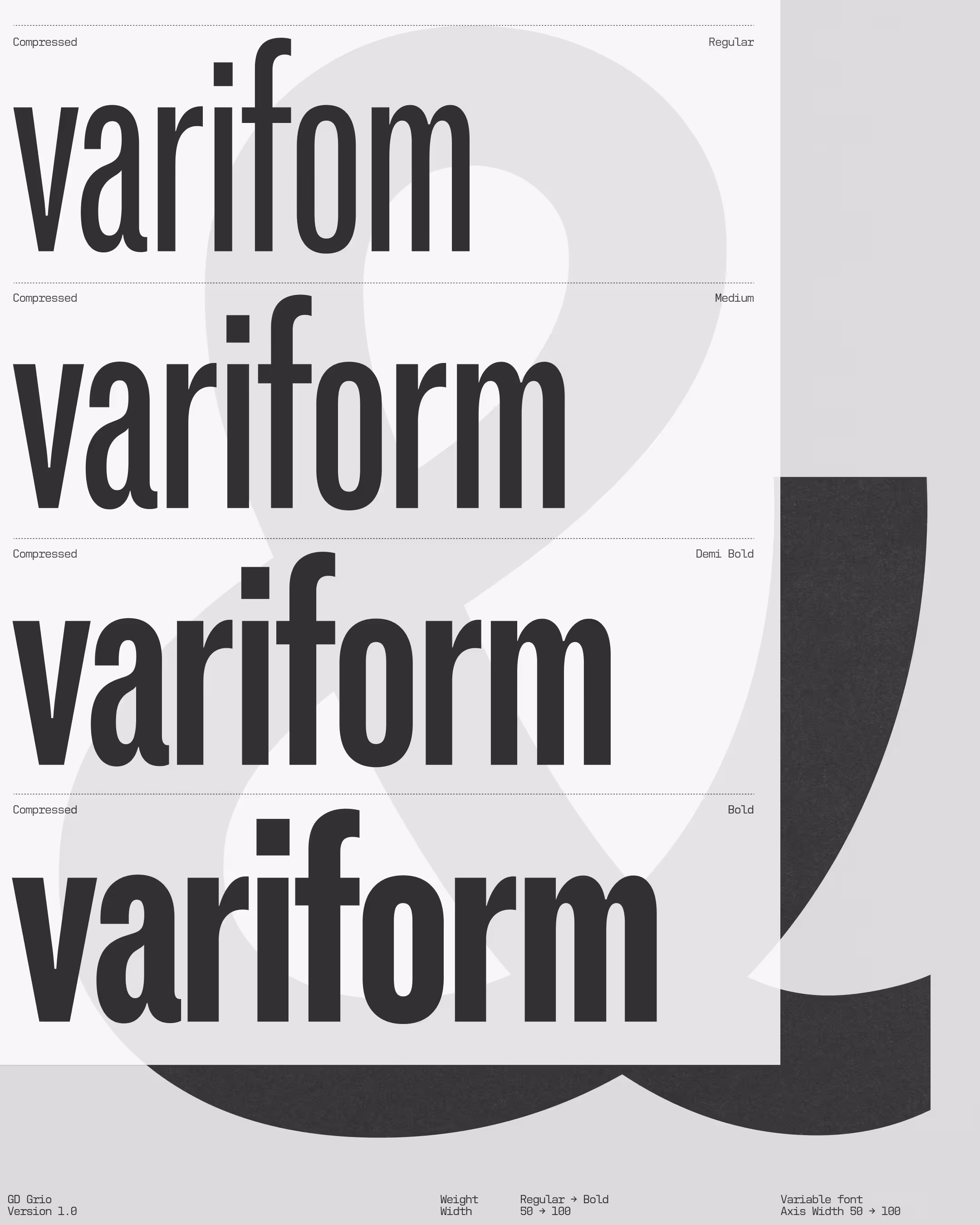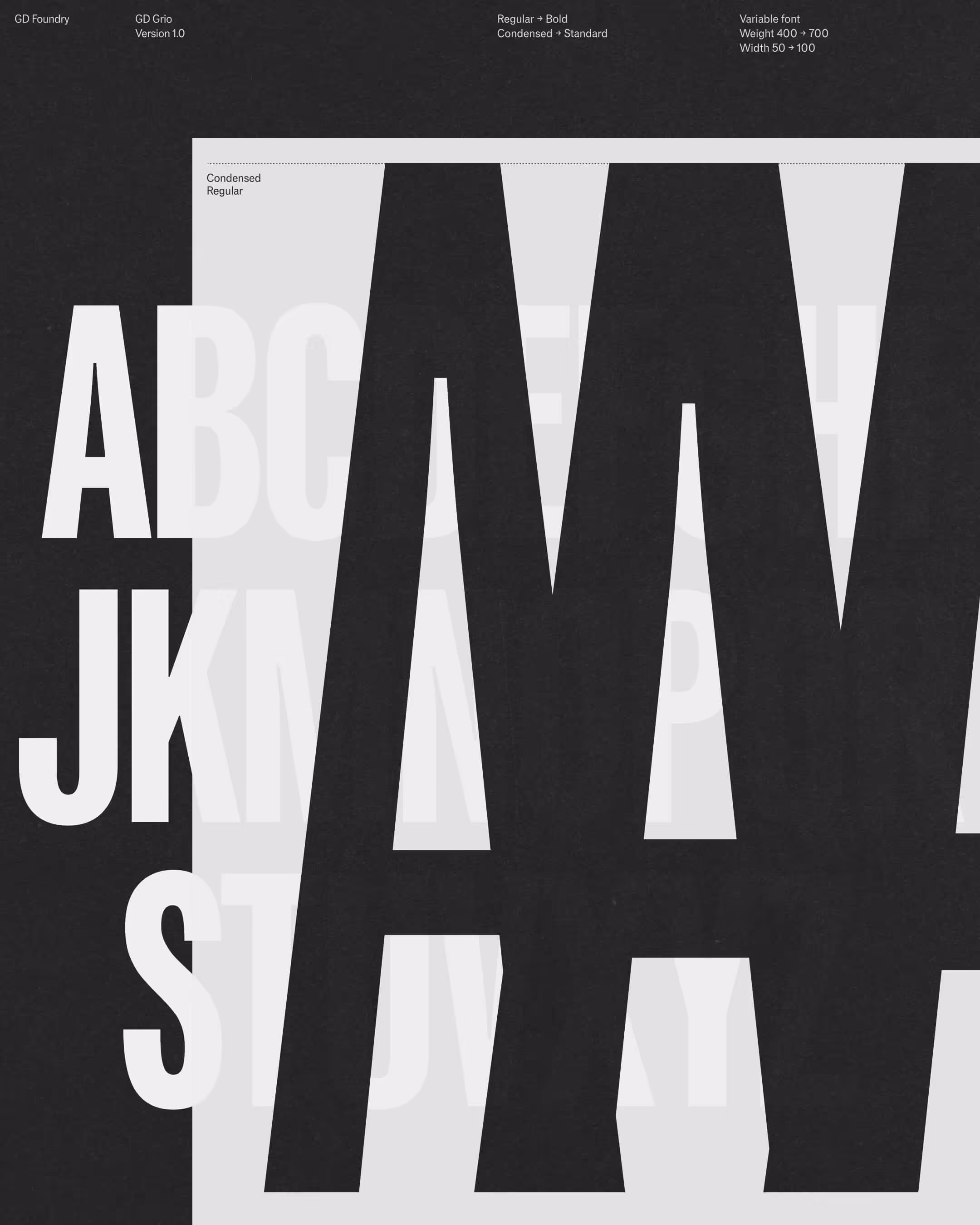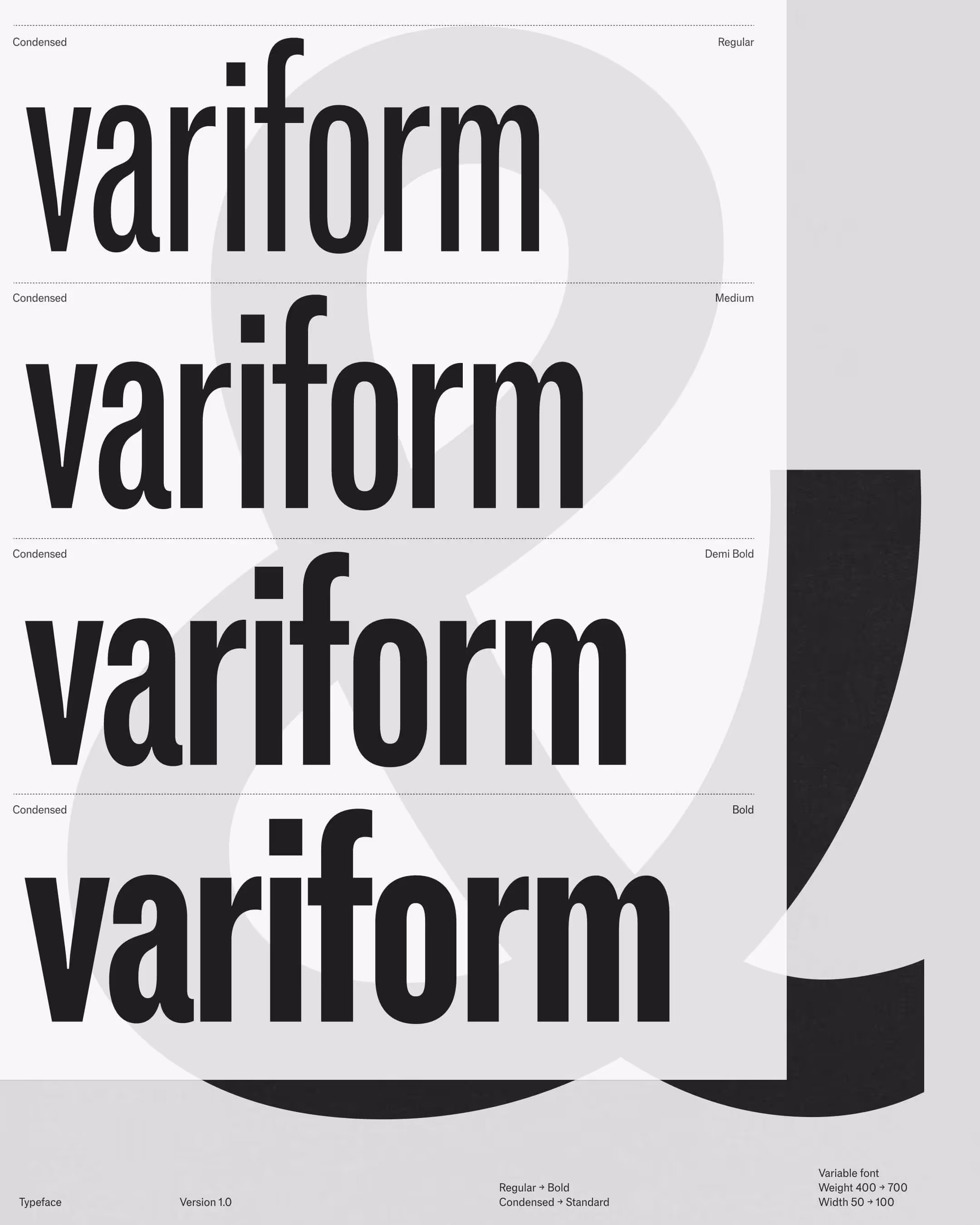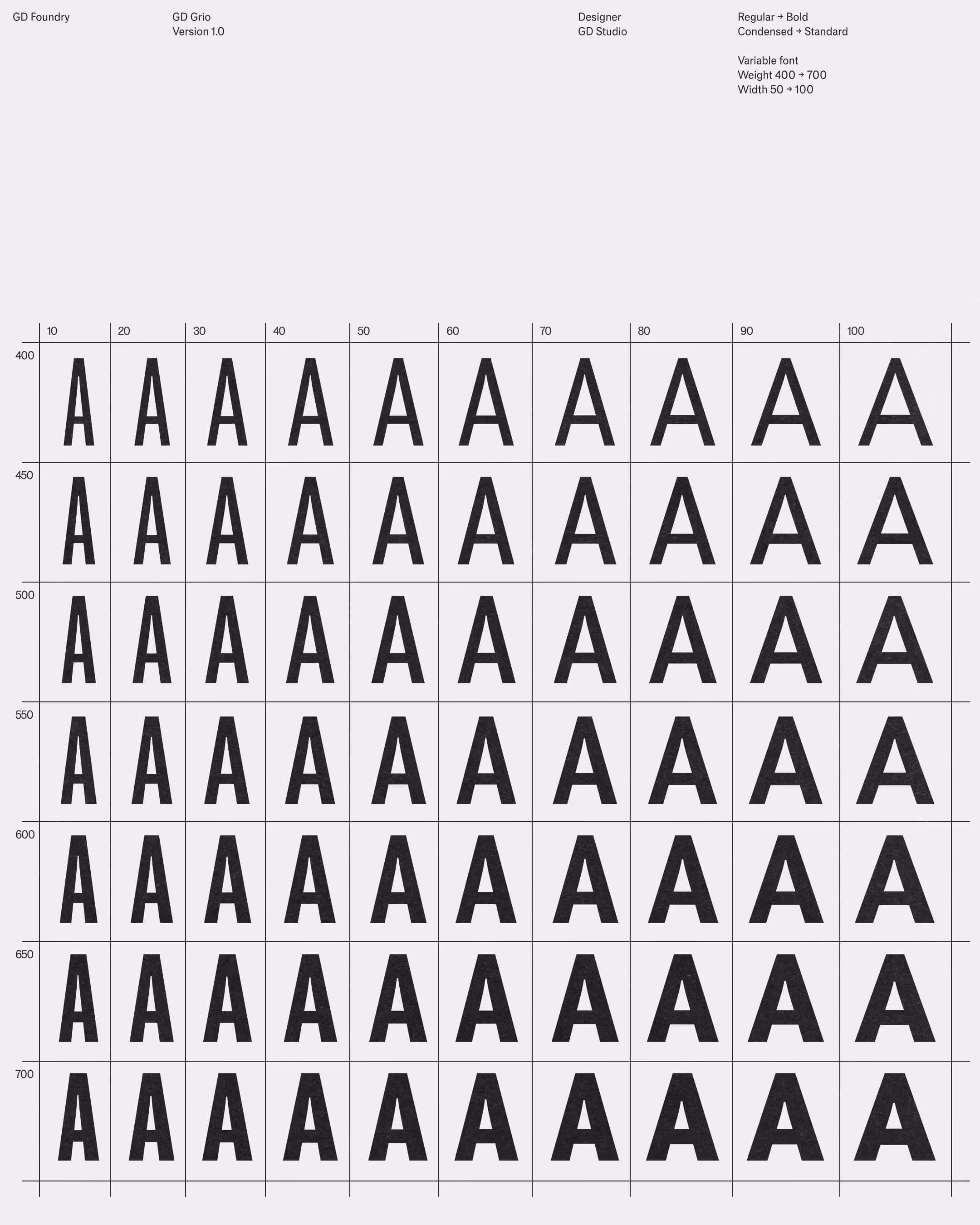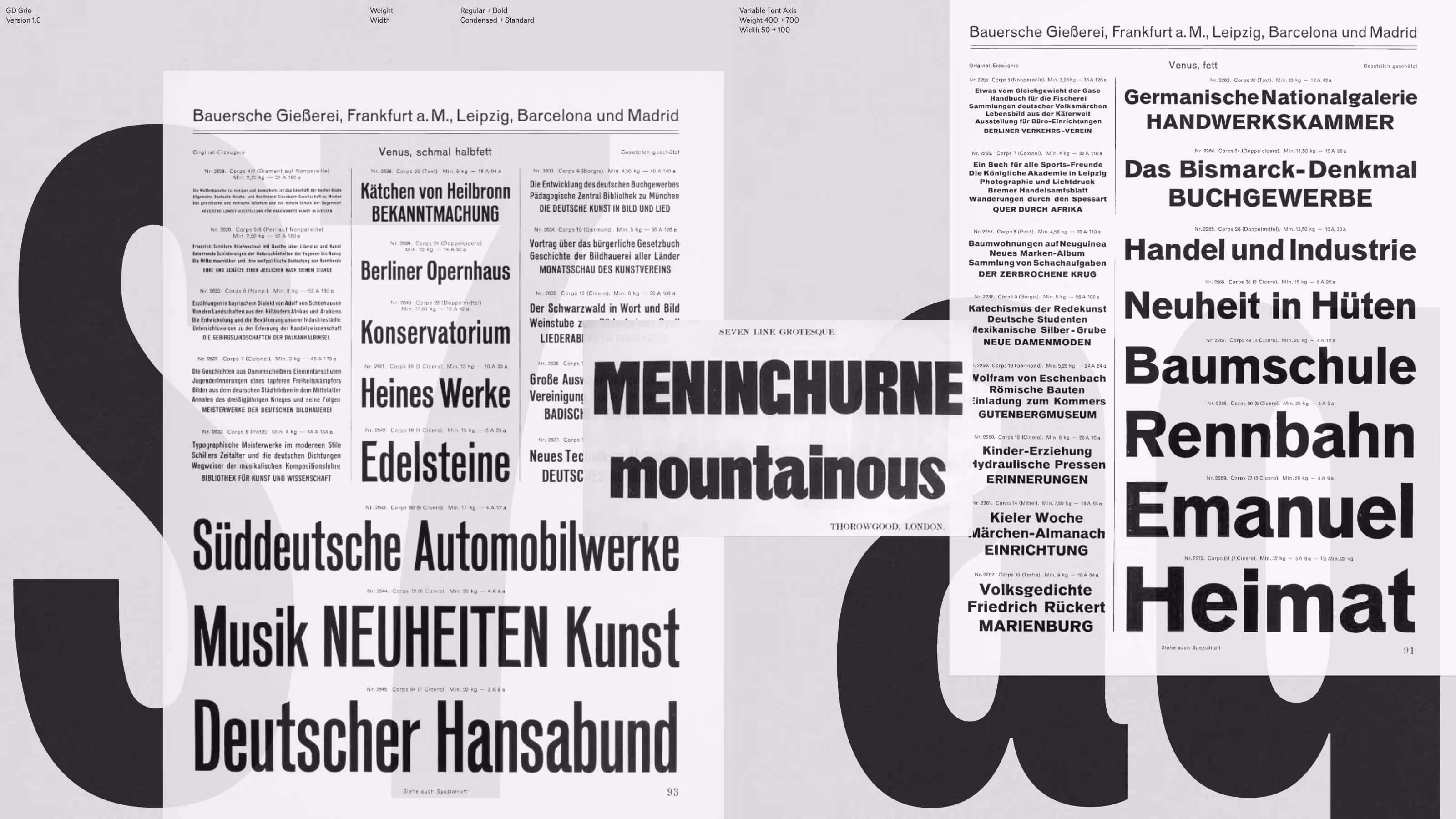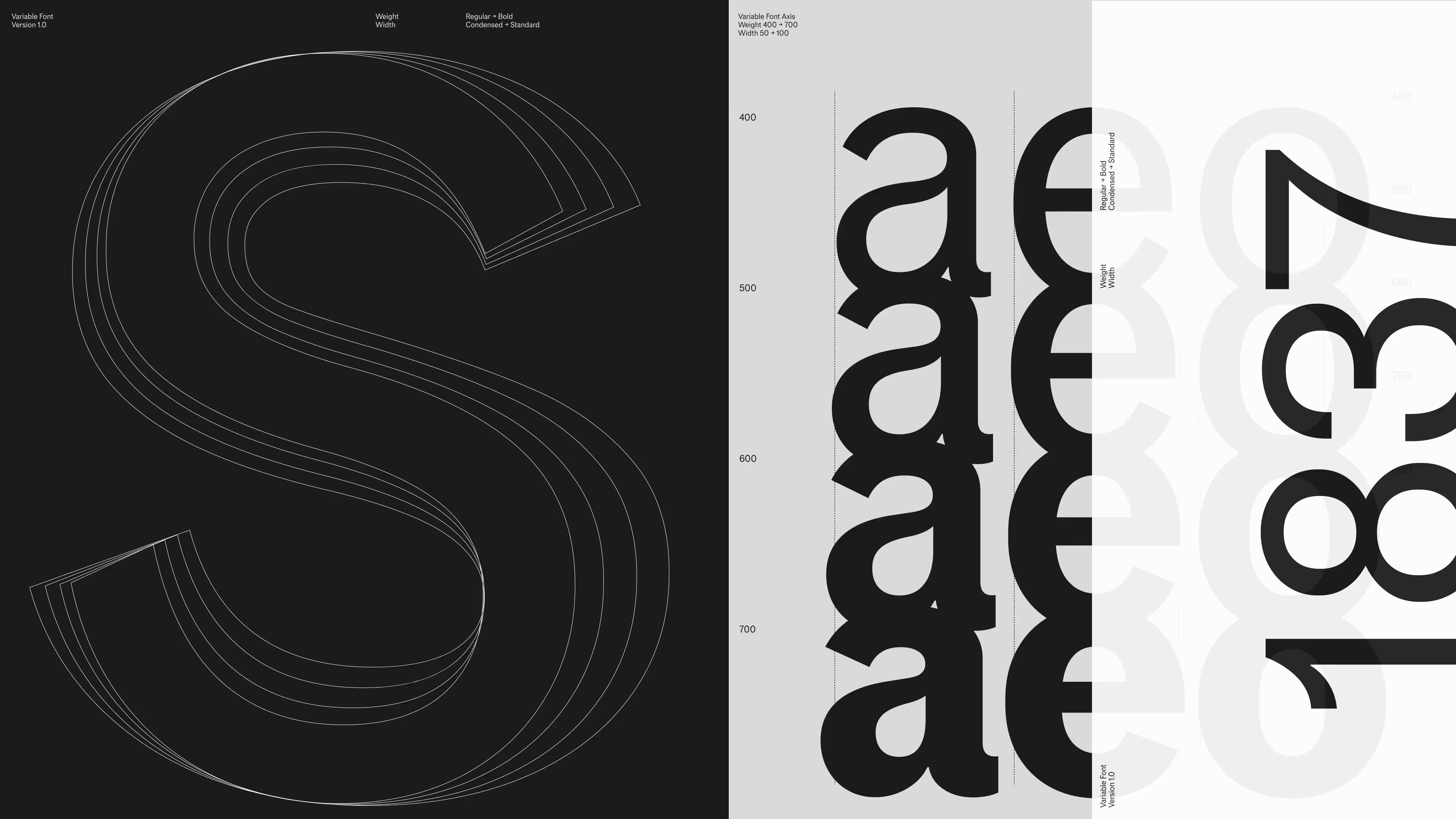
GD Grio – Imperfectly Perfect
GD Grio is built on a simple yet generous idea, a typeface designed to fill space. It can condense to fit within tight compositions or expand to occupy room with confidence, maintaining rhythm and clarity across its full range.
Inspired by Venus Grotesk (1907, Bauer Type Foundry), it celebrates the raw, human charm of a transitional era in typography – when 19th-century eccentricity met 20th-century clarity. Grio embraces imperfection: uneven proportions, shifting rhythm, and curious terminals lend a living texture to every word.
Reimagined as a variable font, it translates these historic quirks into a fluid digital form, moving seamlessly between refined text and expressive display.
Marcus Gärde,
Christoffer Granström,
Anders Wikström
Grotesk
Open Type Alternates
Proportional Numbers
Tabular Numbers
Functional without being dull, minimal without being sterile, a typeface that works effortlessly in body text but still knows how to hold a headline. It balances practicality with personality, delivering clarity without ever feeling cold. It’s versatile, confident, and quietly expressive, the kind of typeface that adapts to every context while retaining its own distinct character.